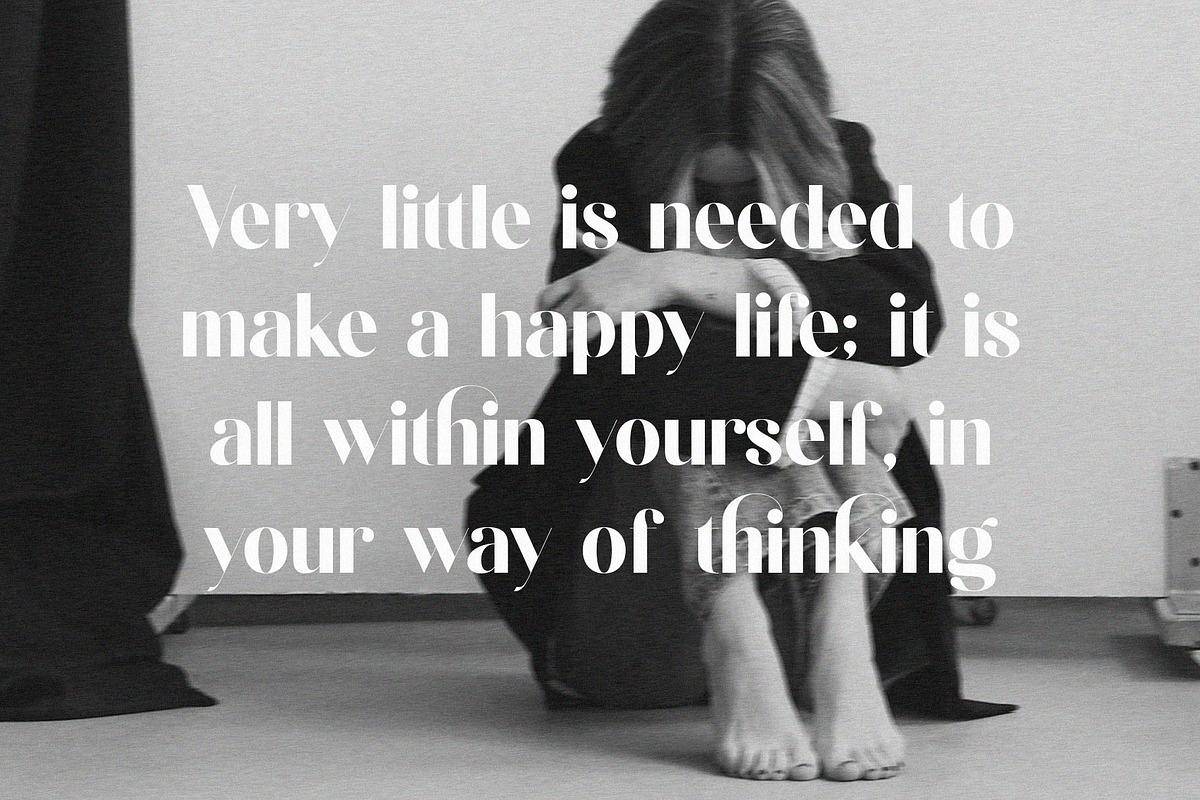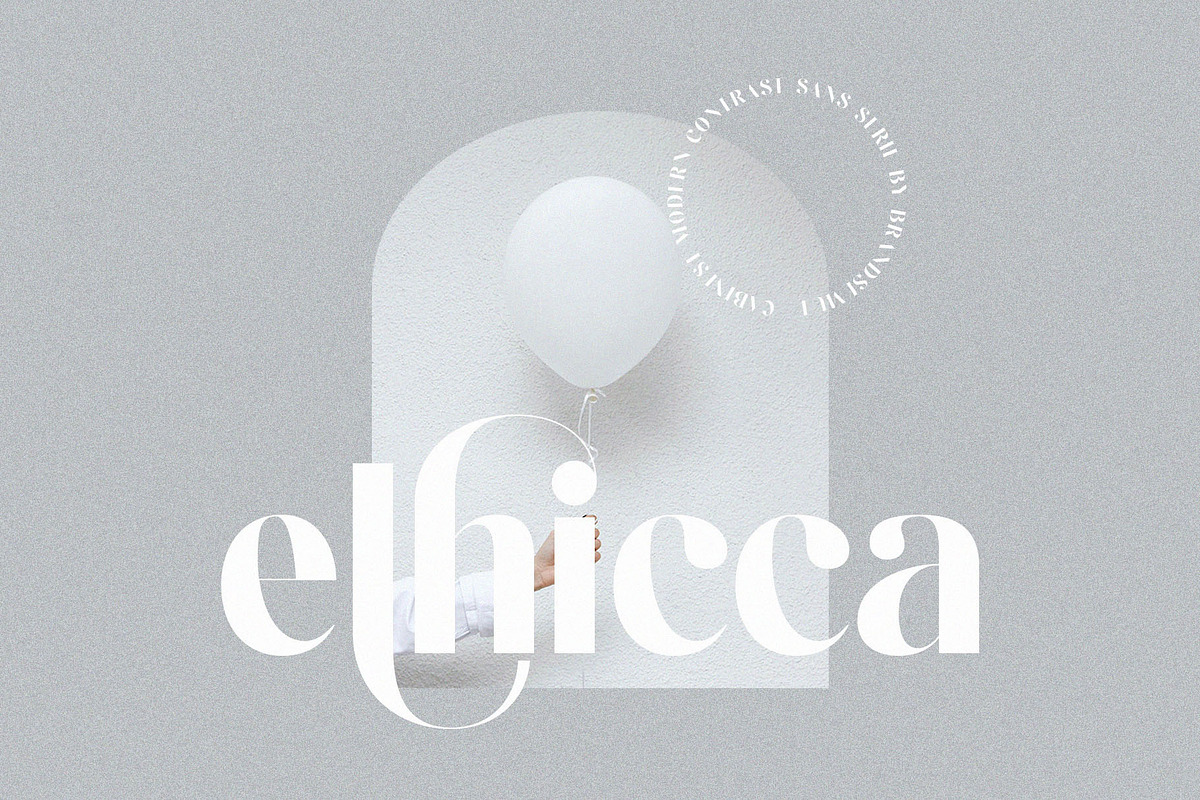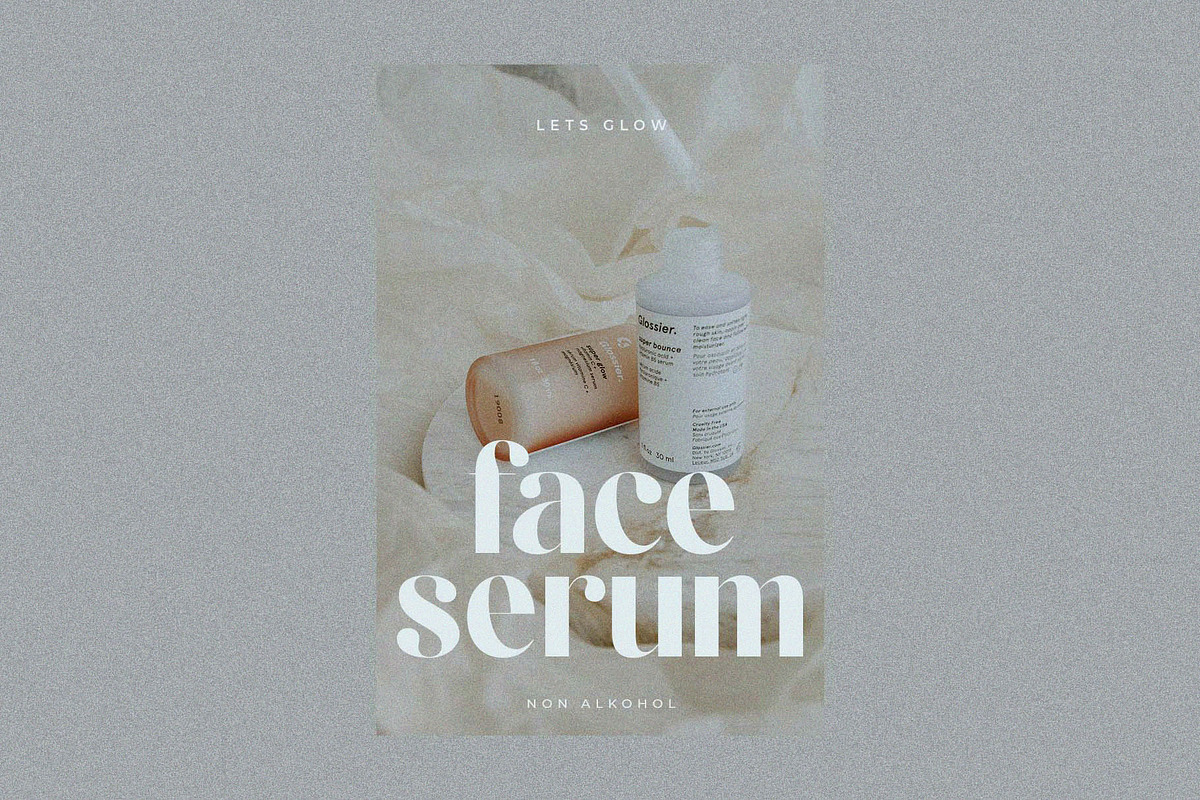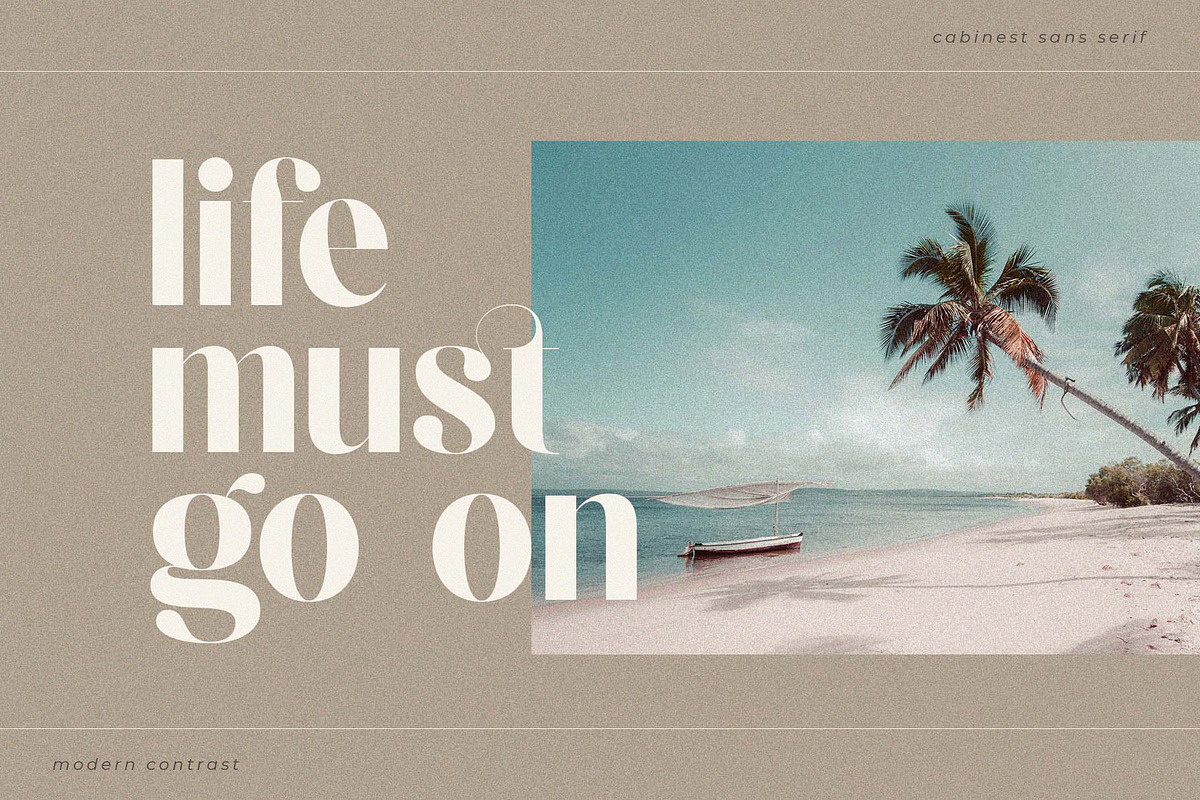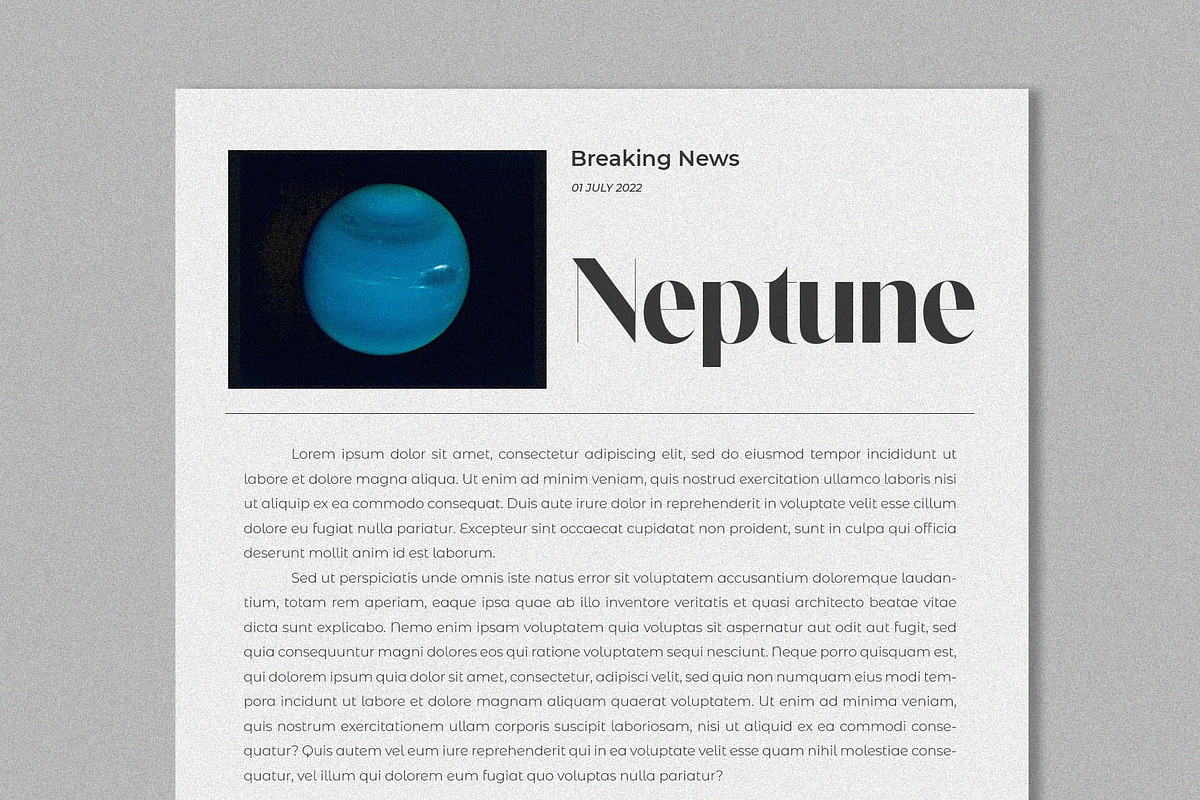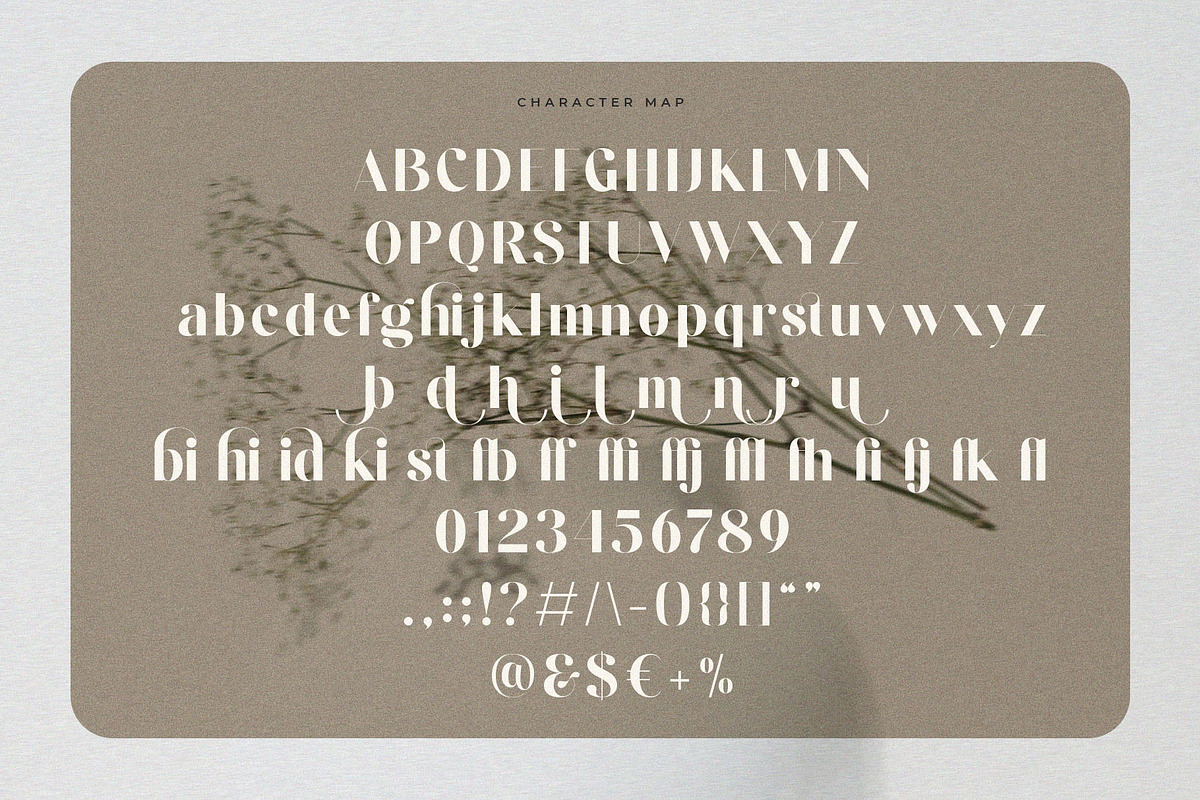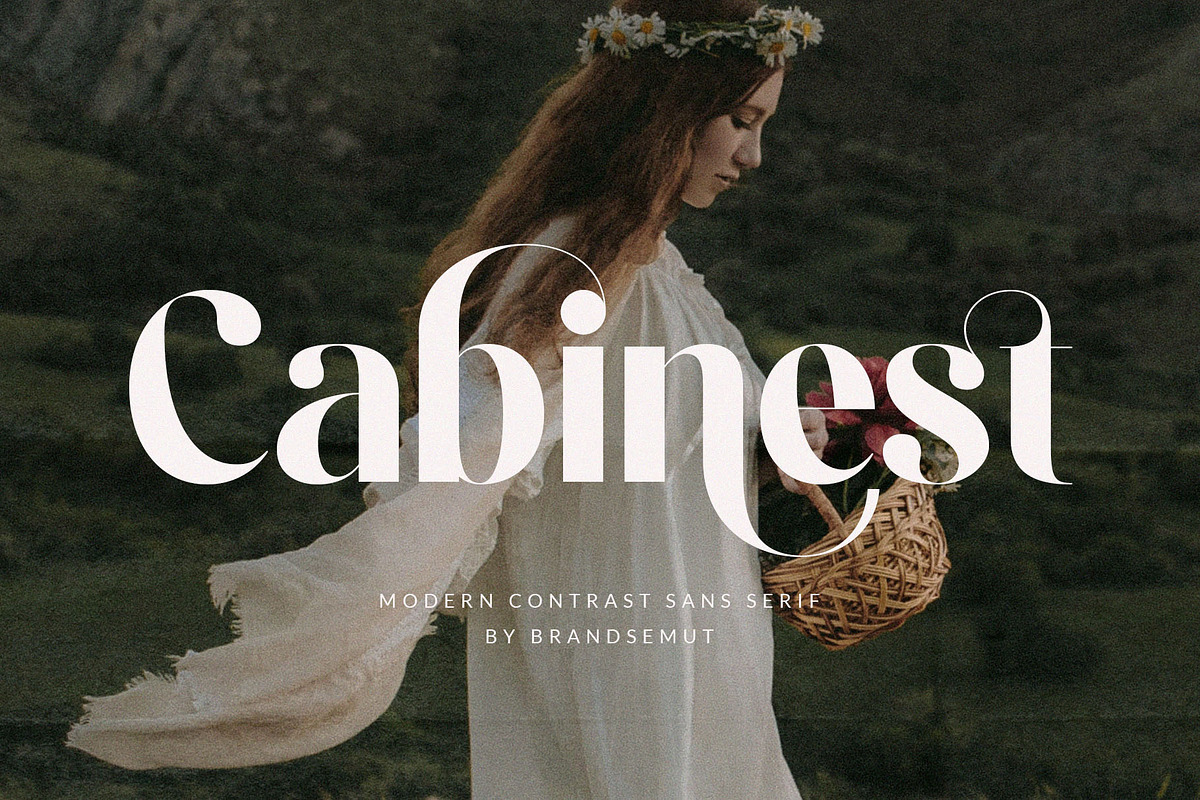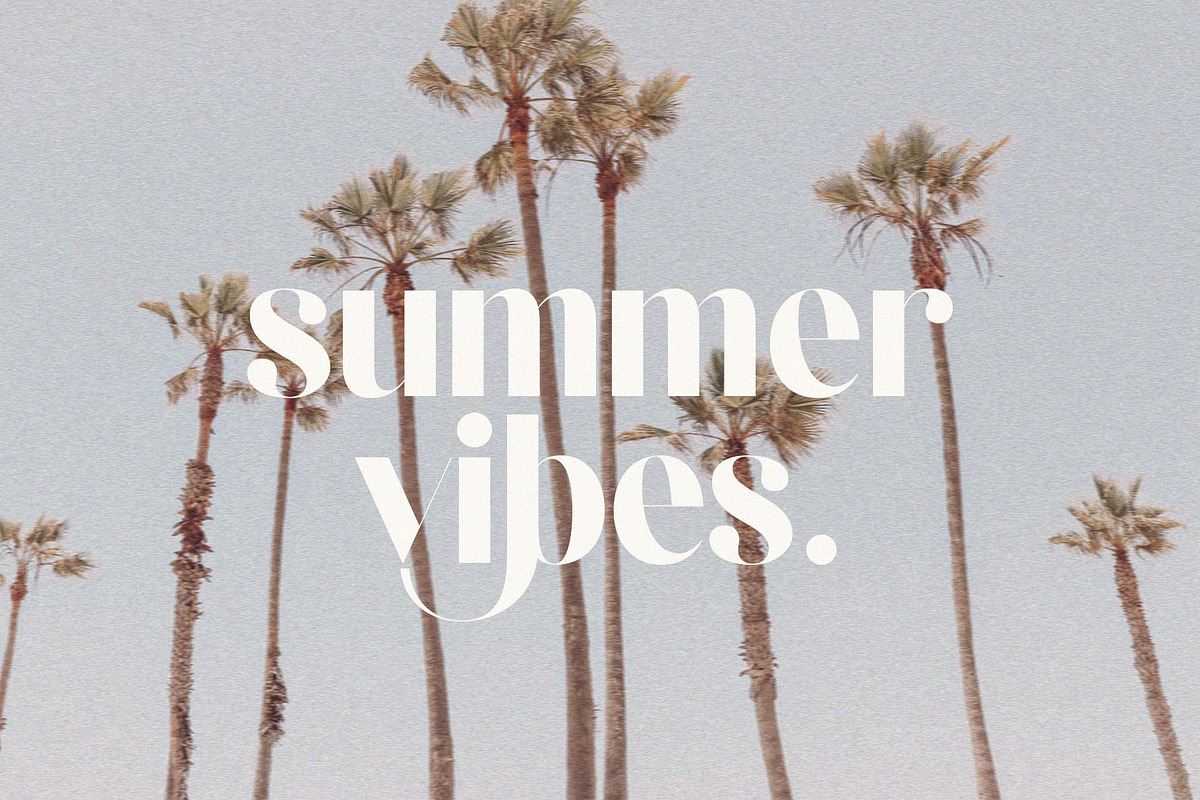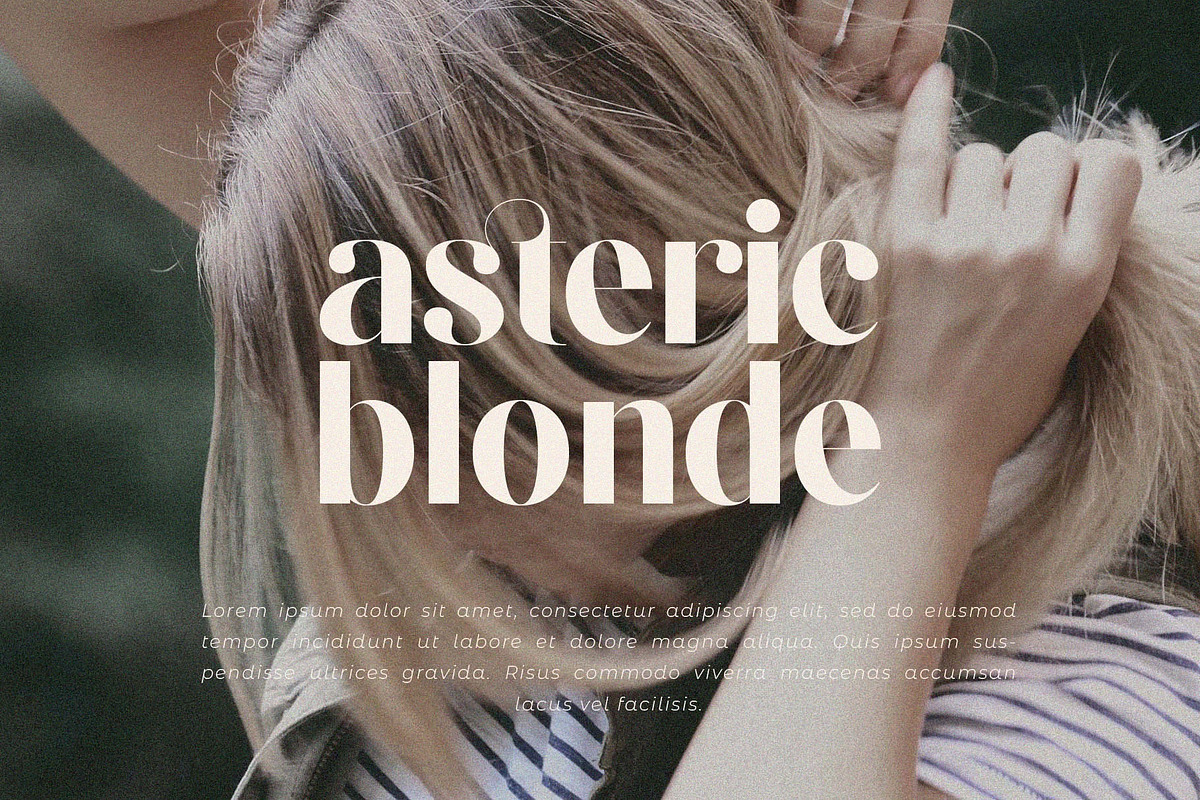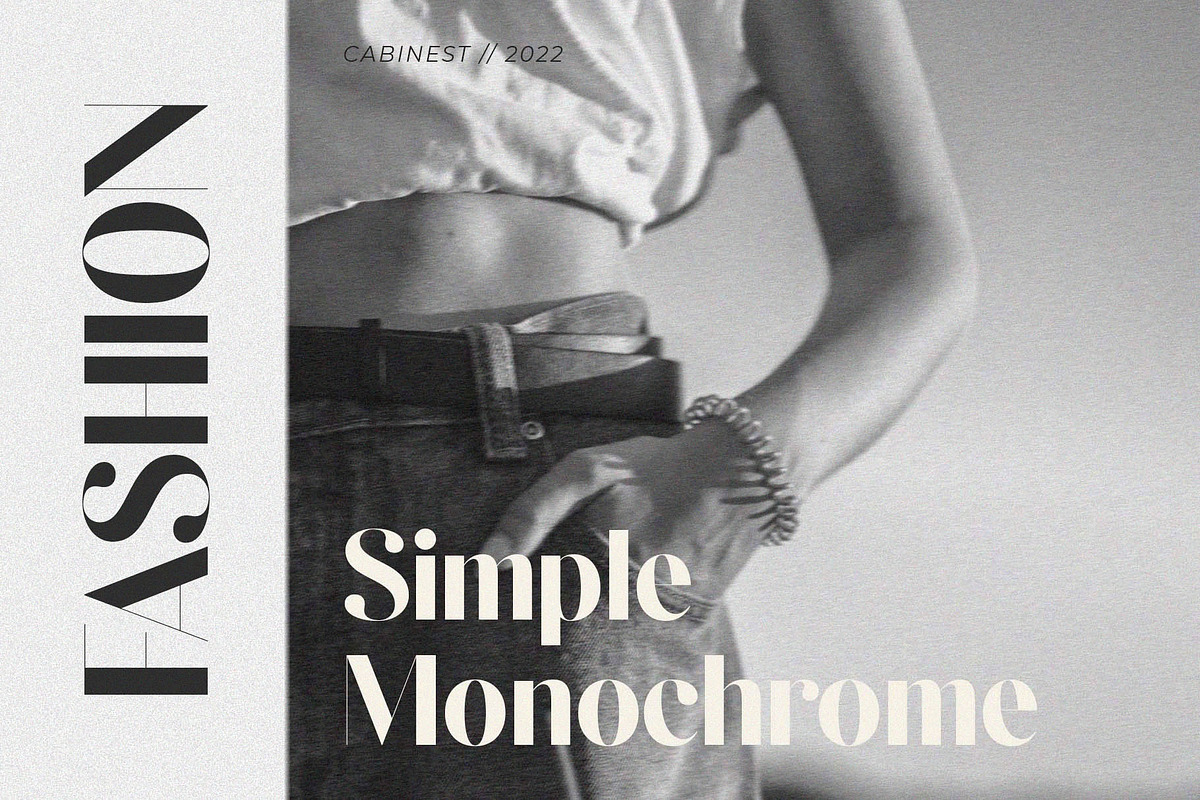
Cabinest – Contrast Sans Serif
Introducing Cabinest Contrast Sans Serif. Cabinest is a elegant and modern typeface, best used as a display for headings, logos, branding, magazines, product packaging and invitations. Cabinest come with clean lines and smooth curves give any project an extra touch of class.